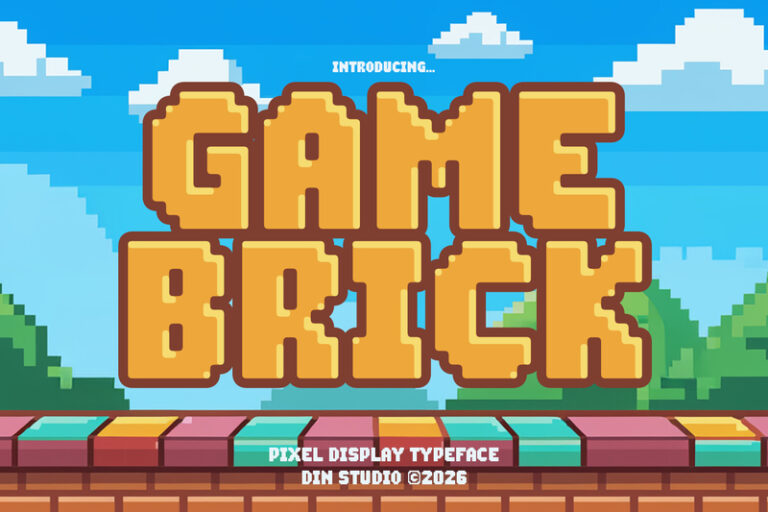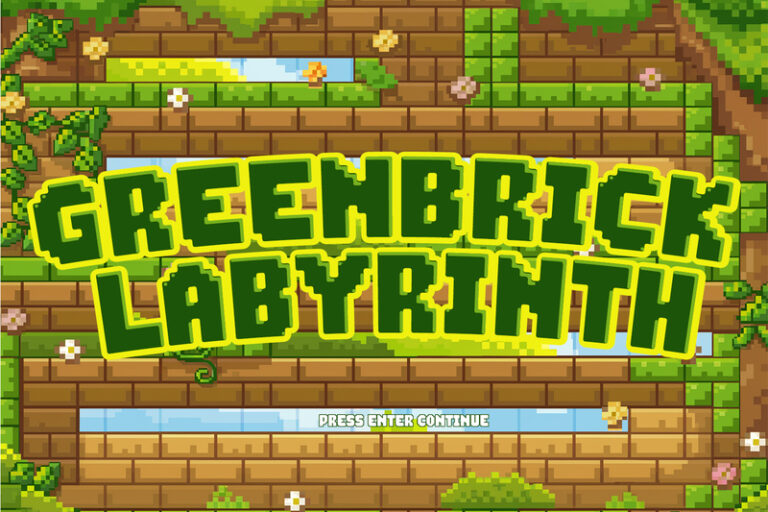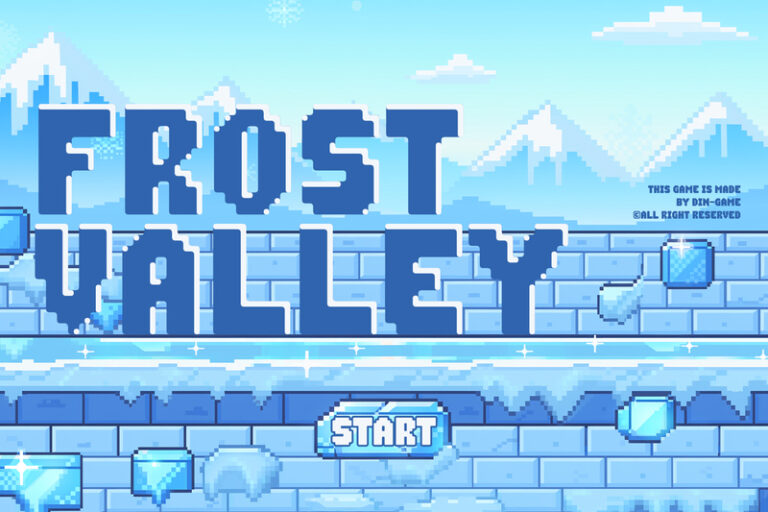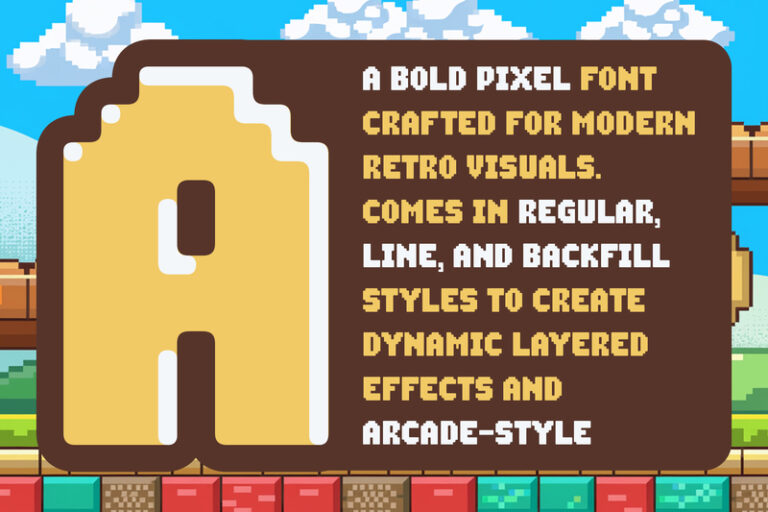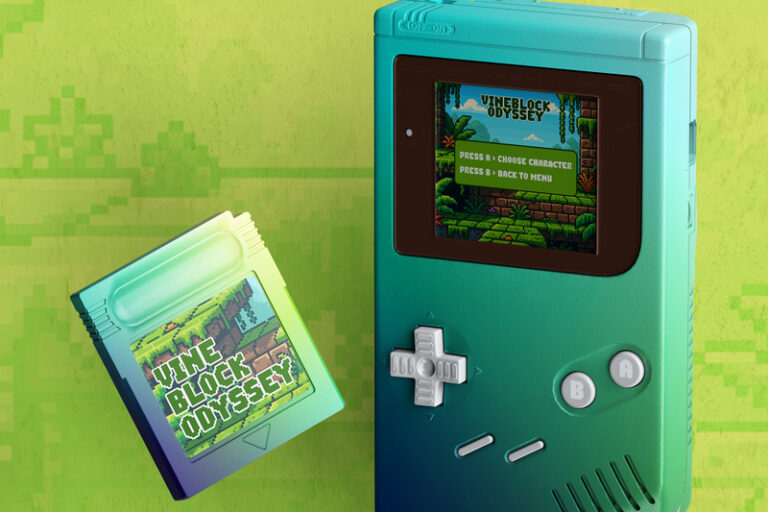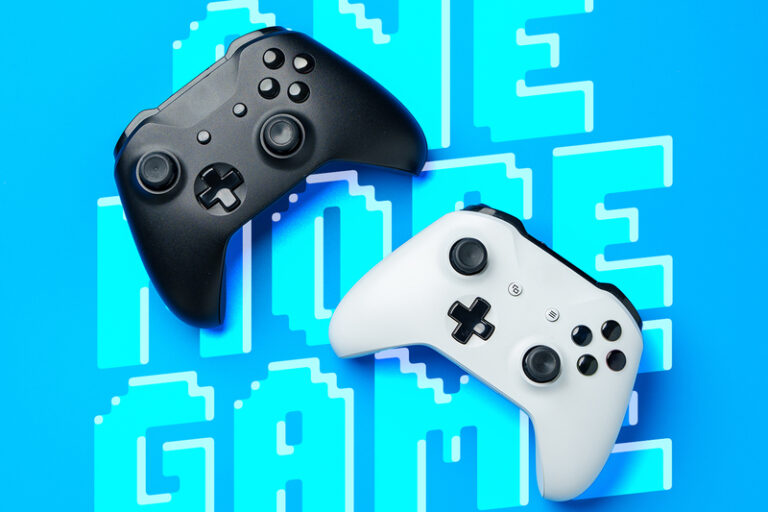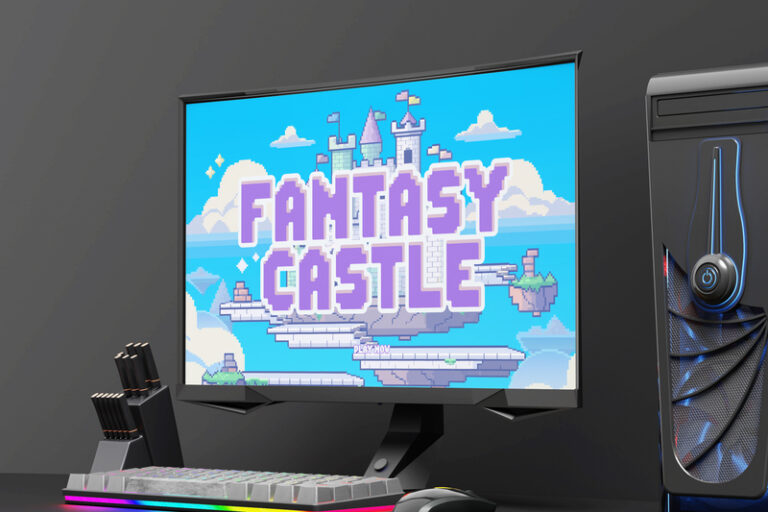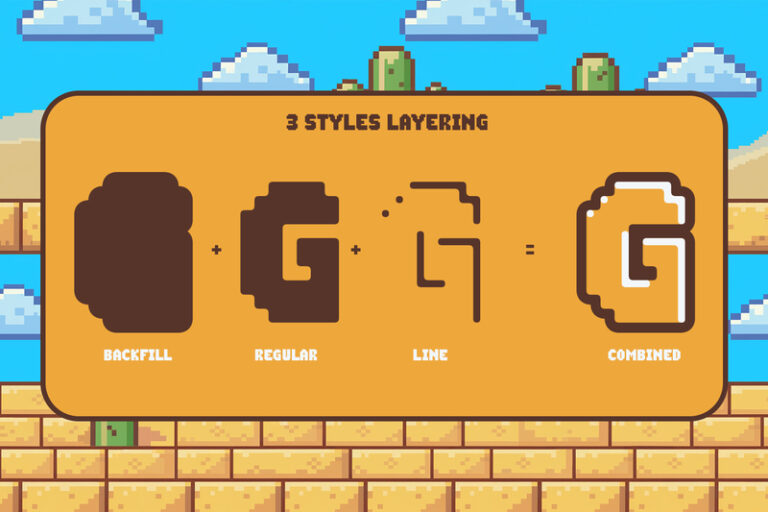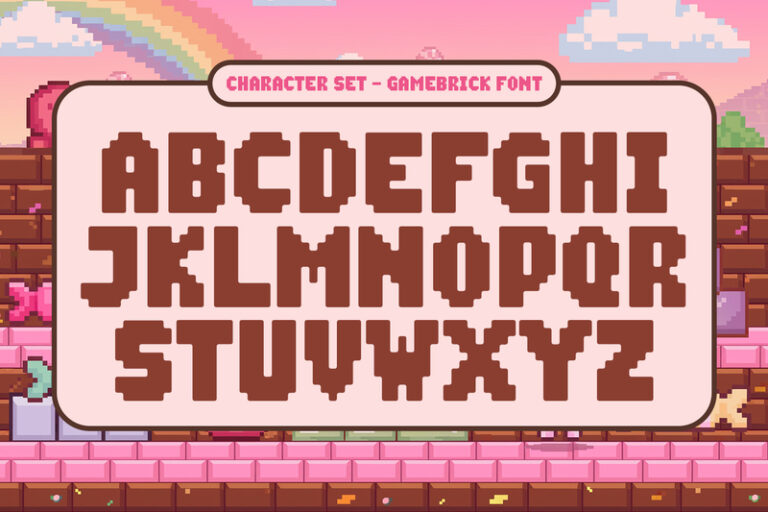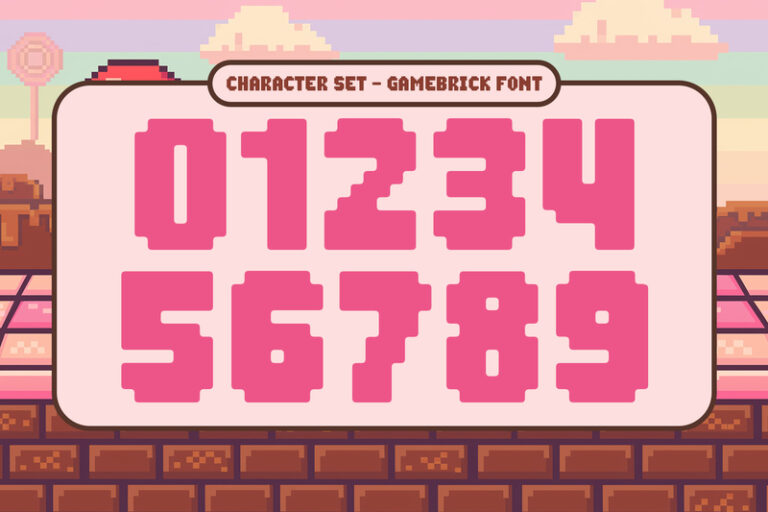
Gamebrick – Pixel Display Font
Gamebrick
Gamebrick is an uppercases high-impact display font. Inspired by classic platformer aesthetics, this font captures the playful spirit of retro video games while maintaining a modern, polished edge that works seamlessly across digital and print designs. Gamebrick features thick strokes and solid letterforms that ensure excellent readability even at larger sizes. Each character is carefully constructed to evoke the charm of pixel-based environments while avoiding overly rigid constraints, resulting in a typeface that feels both familiar and fresh. In addition, enjoy the features here.